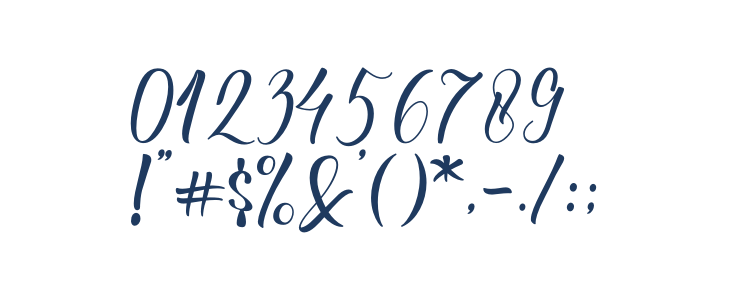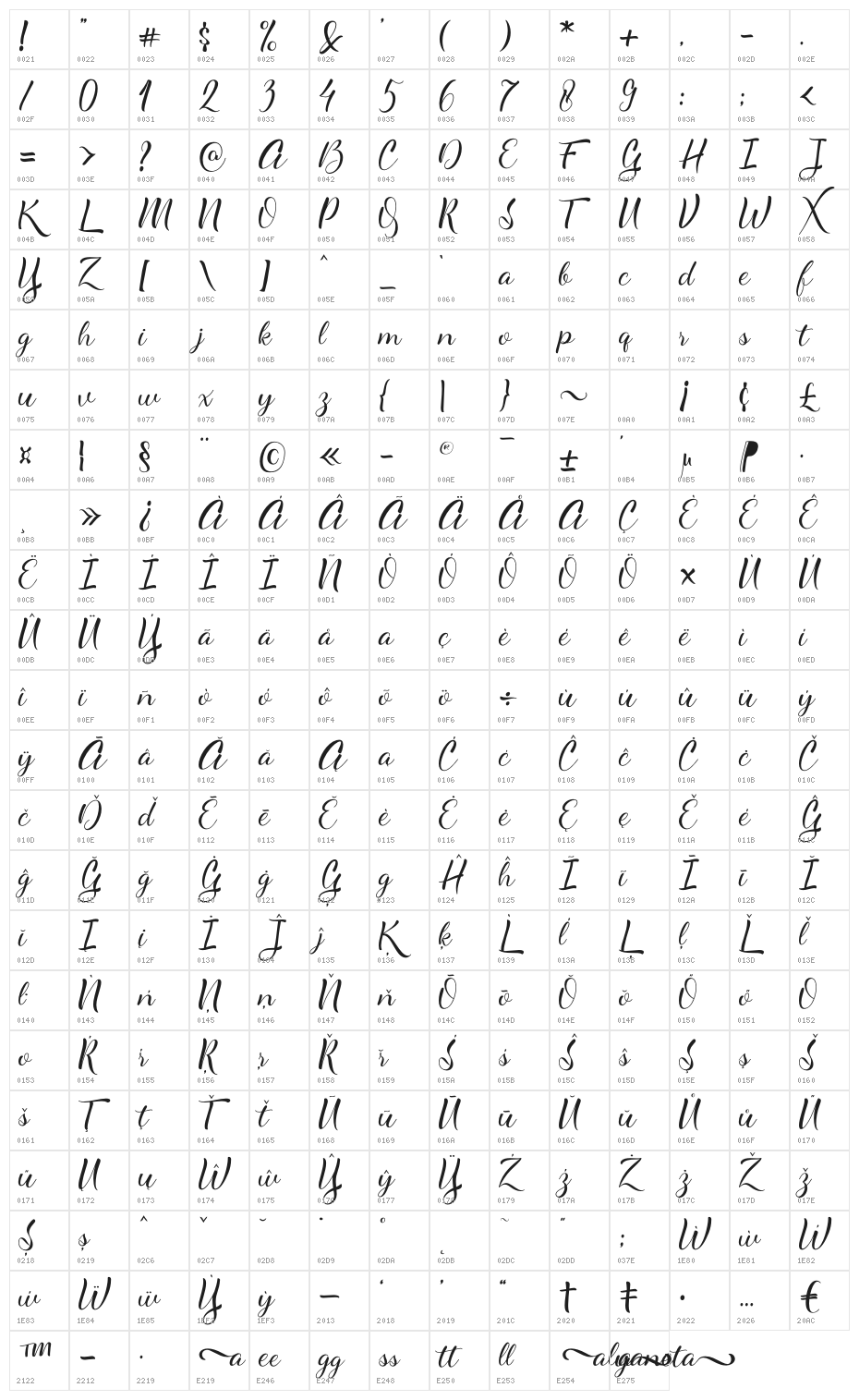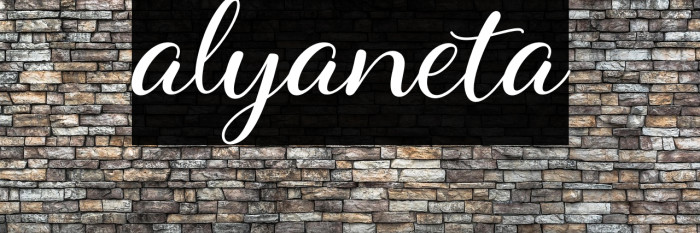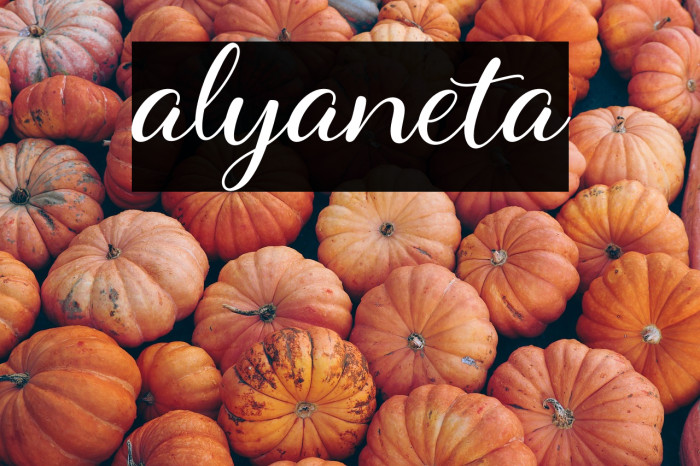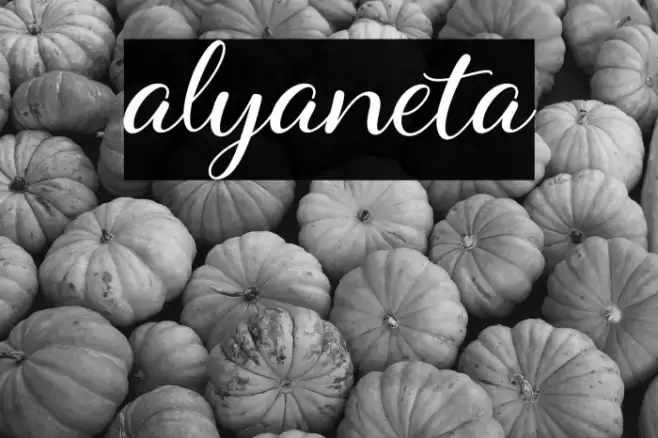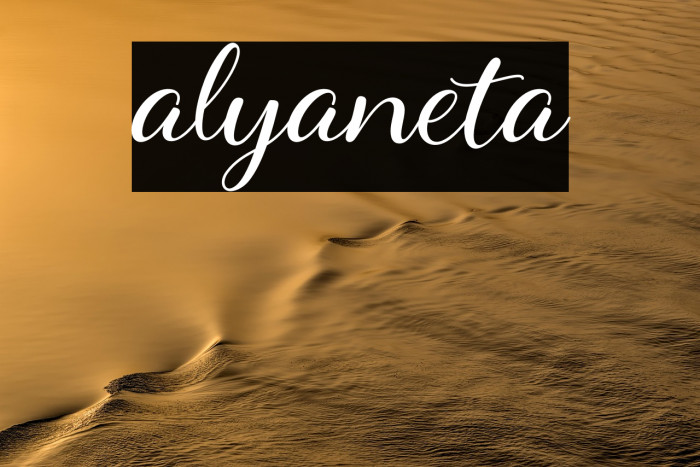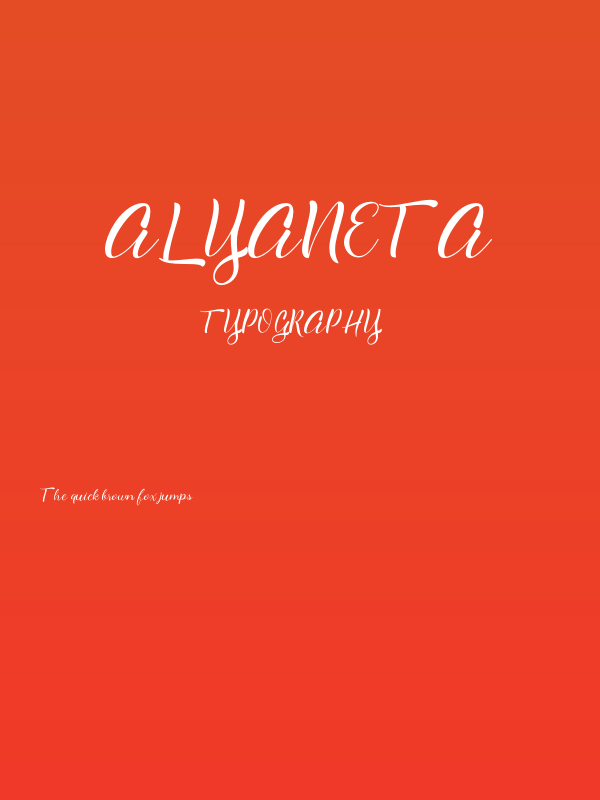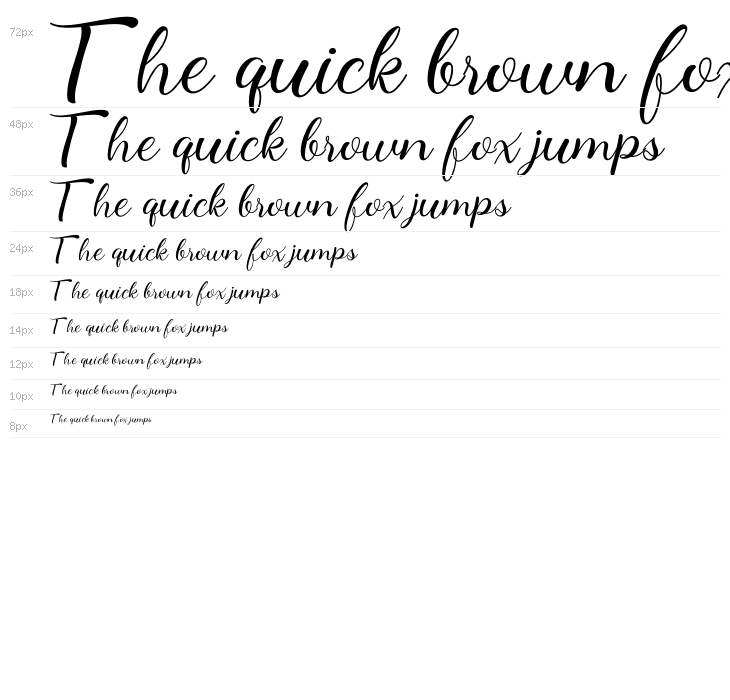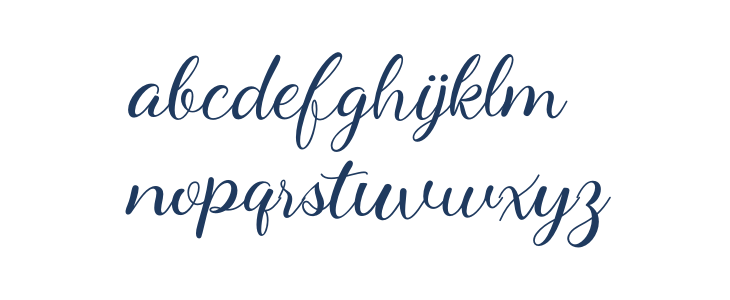
alyaneta Font
alyaneta Description
This font features a flowing, cursive style that exudes elegance and sophistication. The characters are connected with smooth, sweeping strokes, giving it a handwritten appearance. The uppercase letters are bold and prominent, while the lowercase letters maintain a consistent flow, enhancing readability. The numerals are stylishly crafted, maintaining the overall aesthetic of the font. Special characters are designed with flair, adding a decorative touch. This font is perfect for projects that require a personal, artistic touch, such as invitations, greeting cards, and branding materials.
| Overall Style | Elegant, Artistic |
| Use Case | Headlines, Invitations, Artistic Branding |
| Proposed Projects | Ideal for wedding invitations, greeting cards, and artistic branding. |